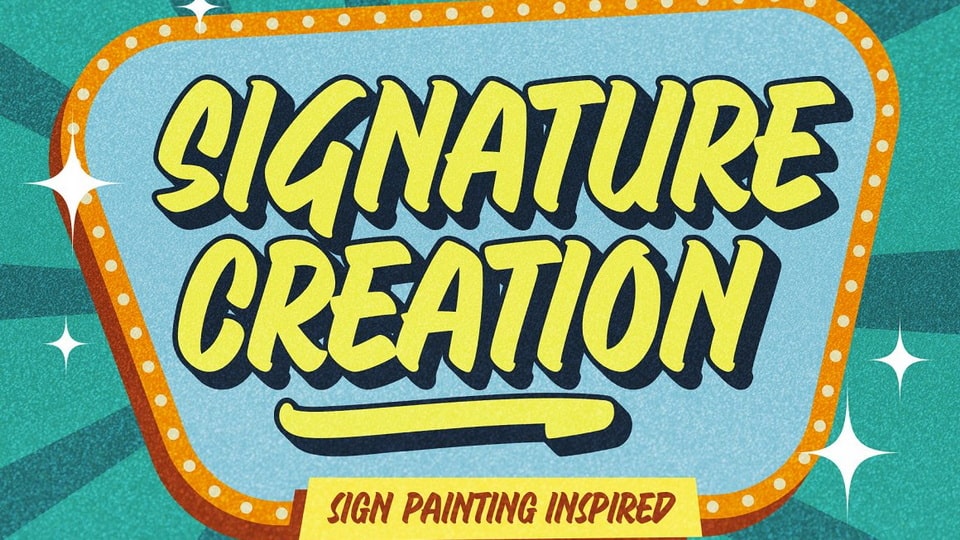
Download Signature Creation font, a nostalgic display typeface inspired by vintage sign painting. Signature Creation boasts a contemporary aesthetic and seamless design, representing craftsmanship, creativity, and movement.